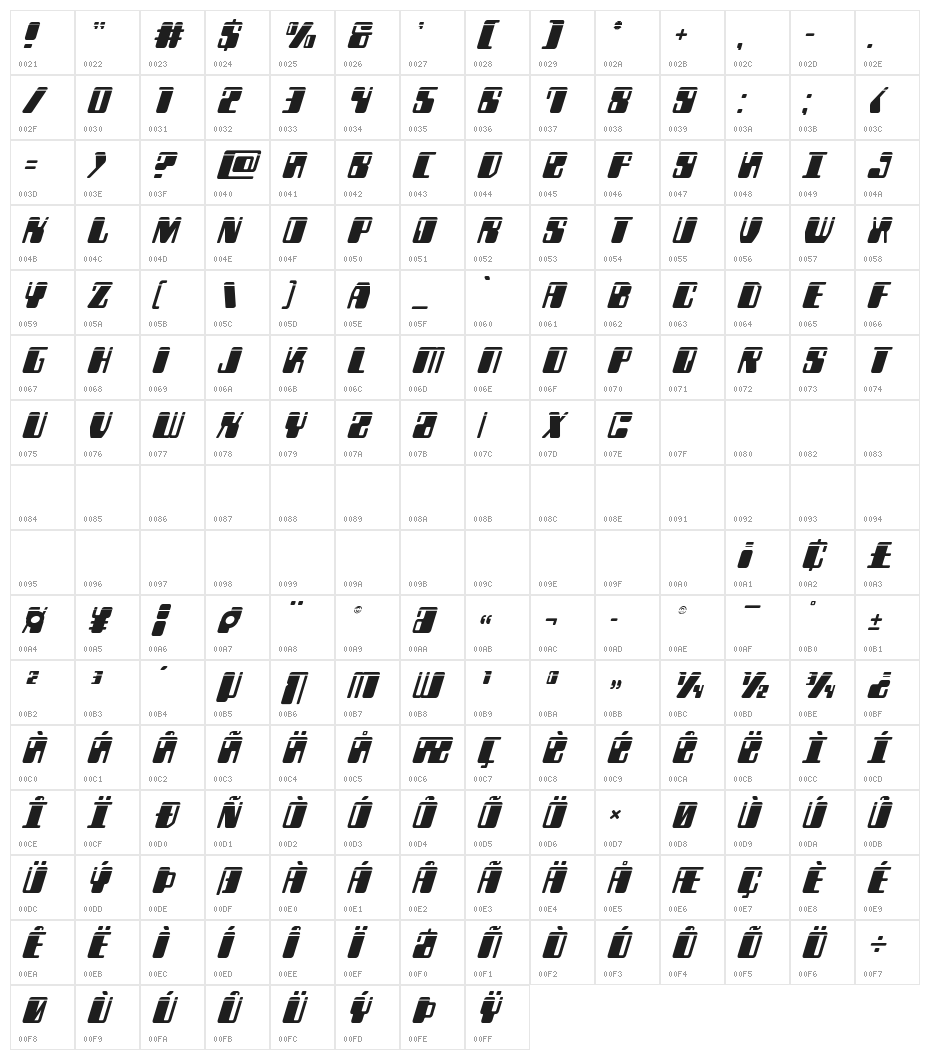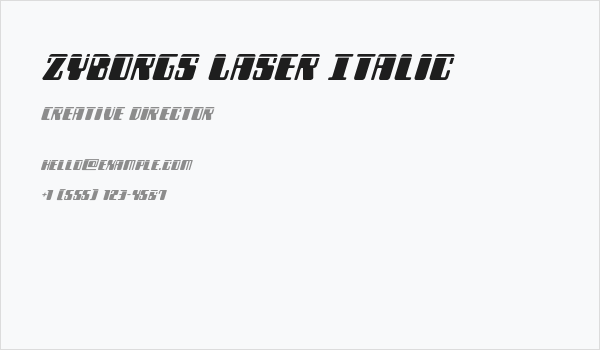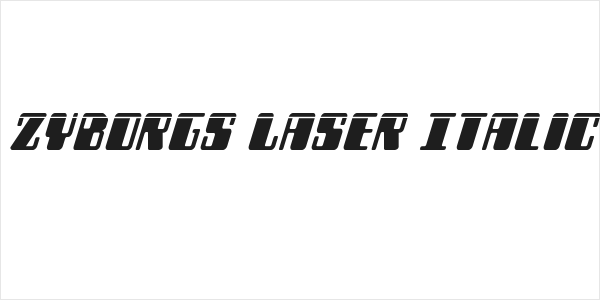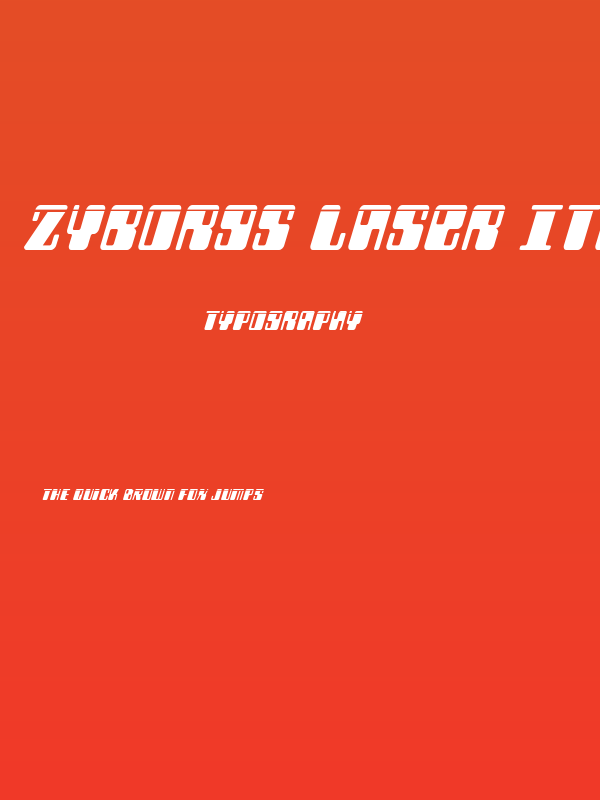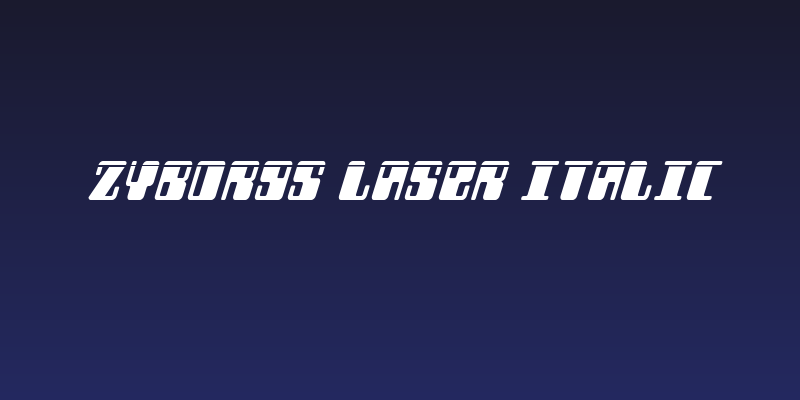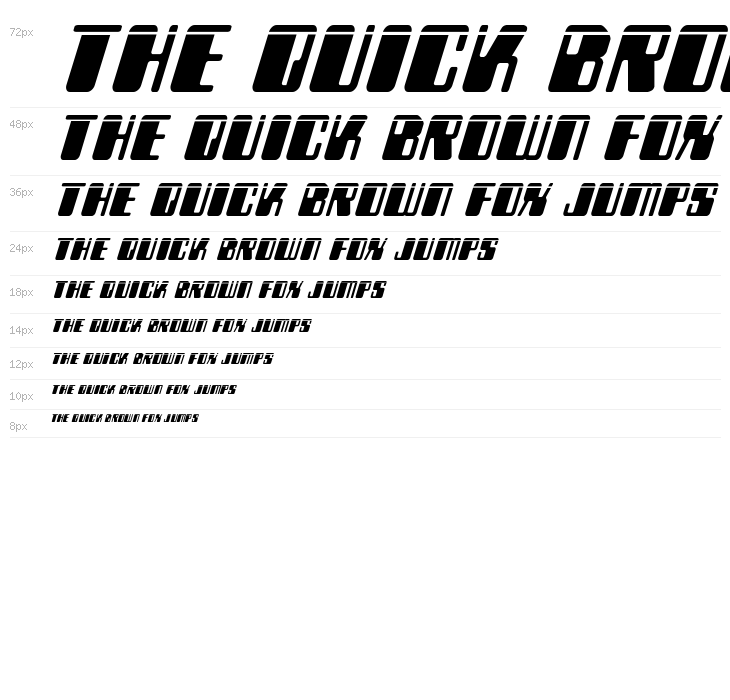
Zyborgs Laser Italic Font
Zyborgs Laser Italic Description
This font features a futuristic and dynamic design, characterized by its sharp, angular edges and italicized slant. The bold strokes and geometric shapes give it a strong presence, making it ideal for attention-grabbing headlines or logos. The characters are uniformly spaced, with a consistent width that enhances readability despite the unique styling. The font's design is reminiscent of sci-fi themes, with a modern twist that incorporates elements of speed and motion. Its high contrast between thick and thin strokes adds to its striking appearance, making it suitable for projects that require a bold and modern aesthetic.
| Overall Style | Futuristic, Modern |
| Proposed Projects | Ideal for sci-fi themed posters, video game titles, tech company logos, and futuristic branding. |